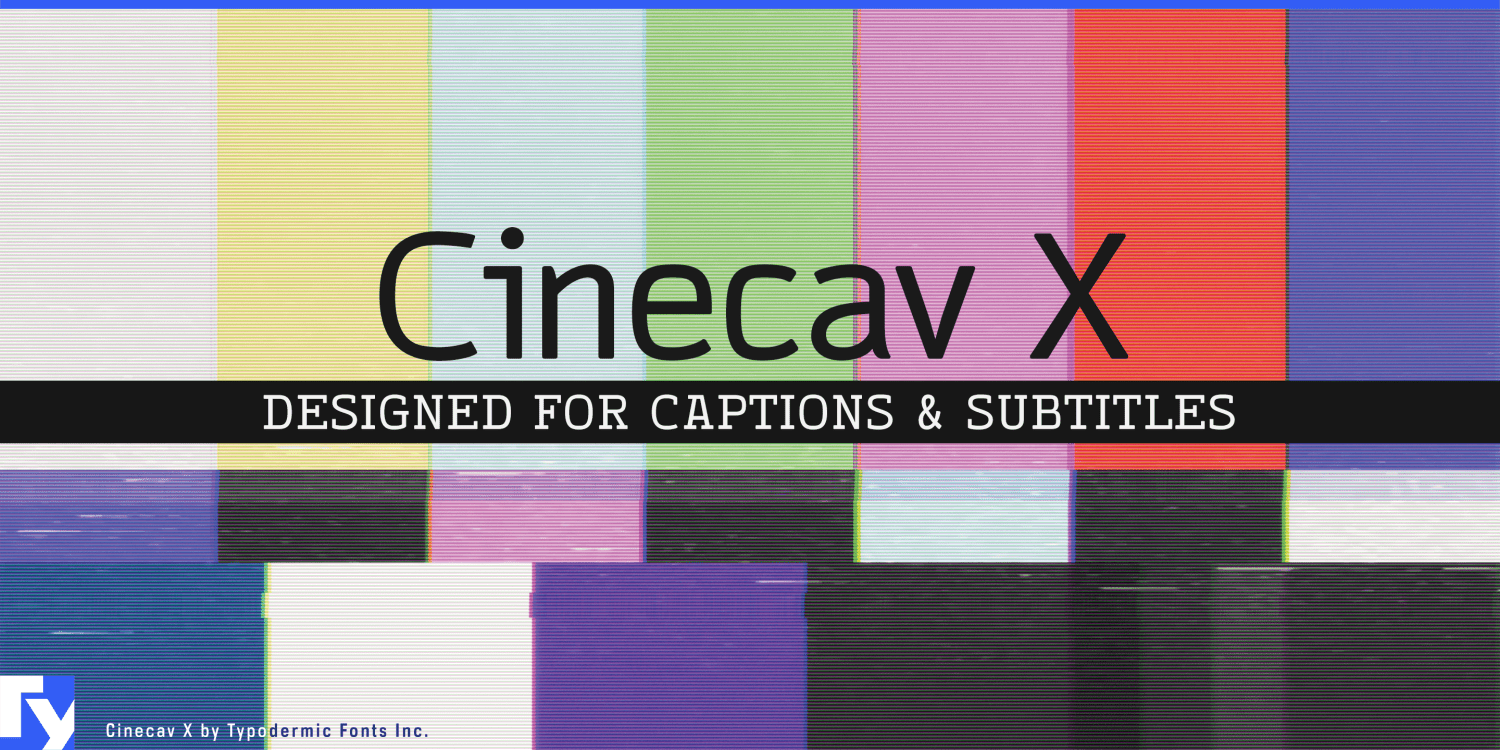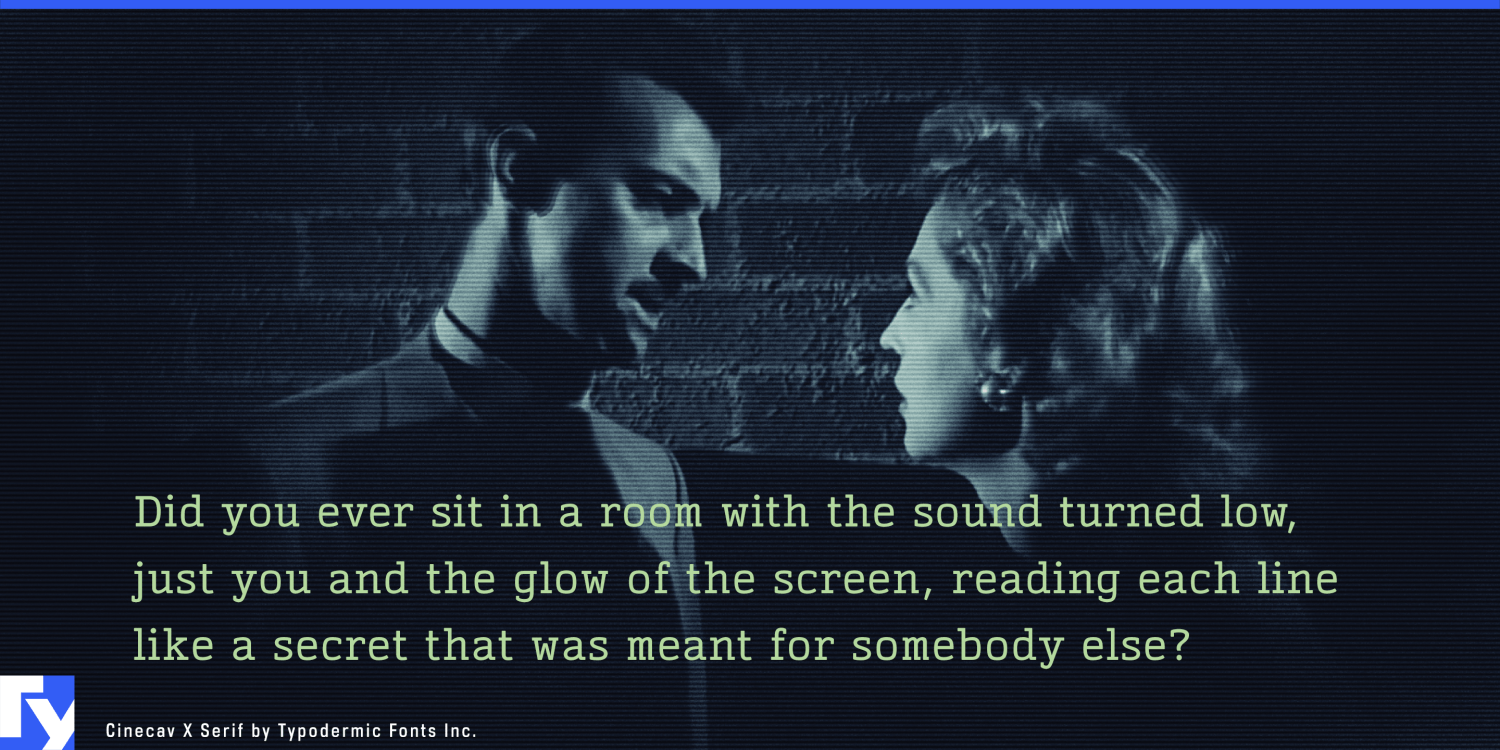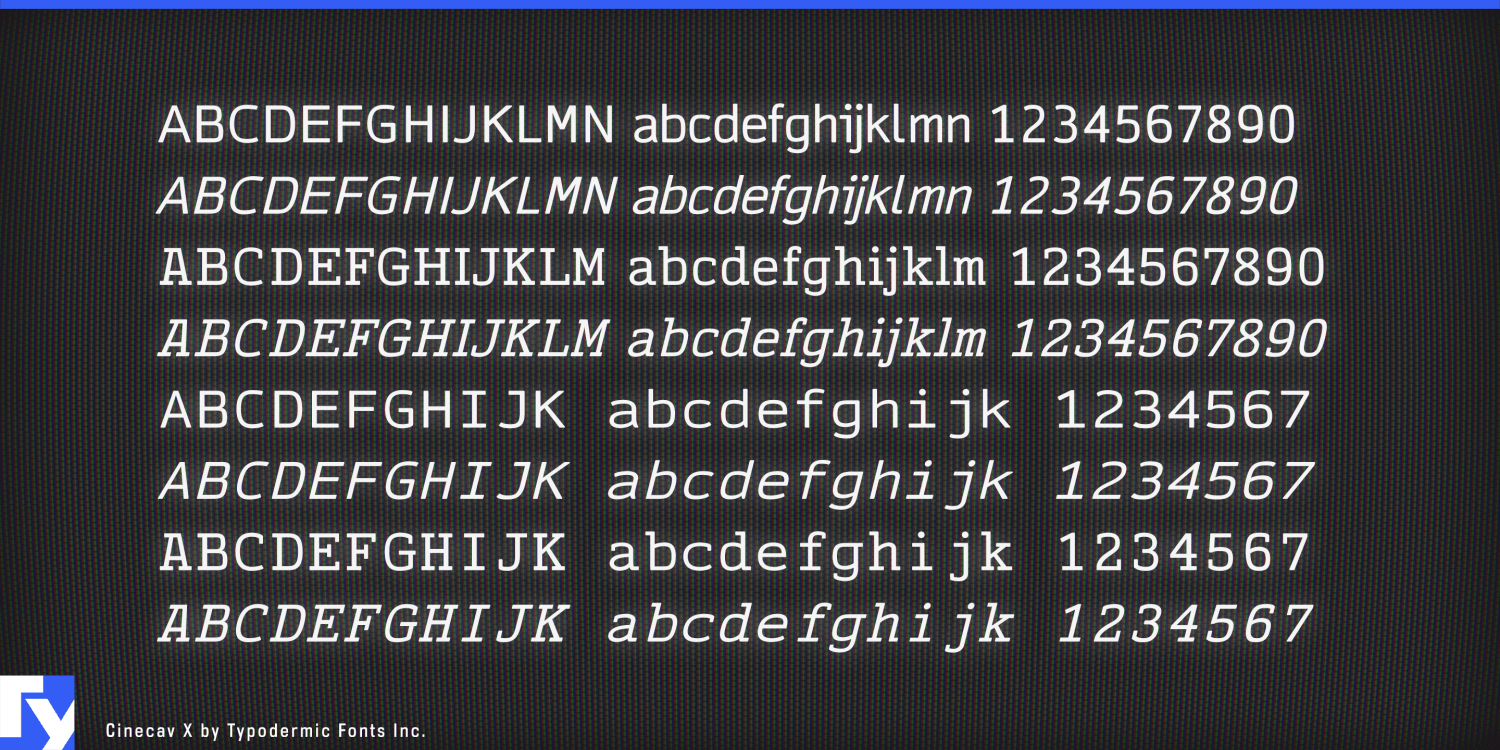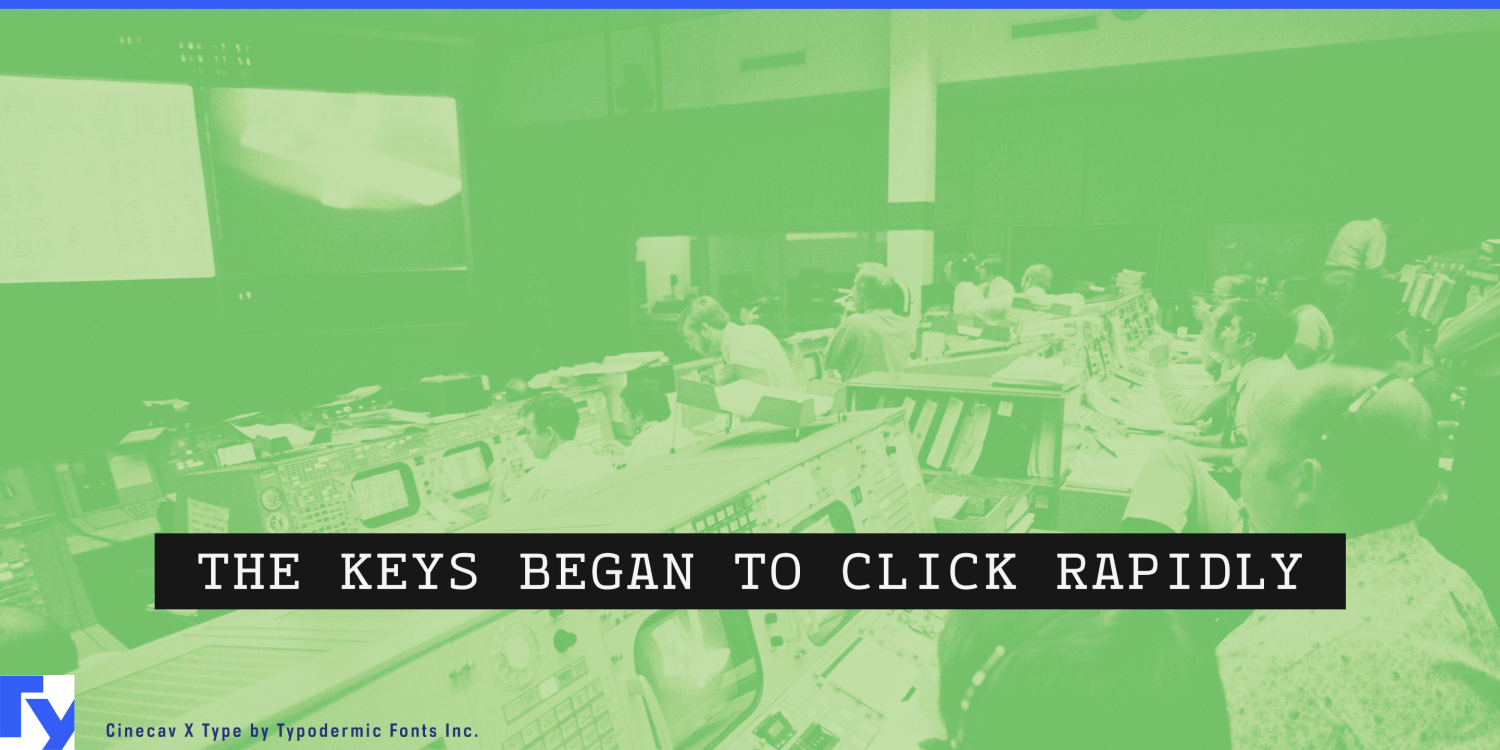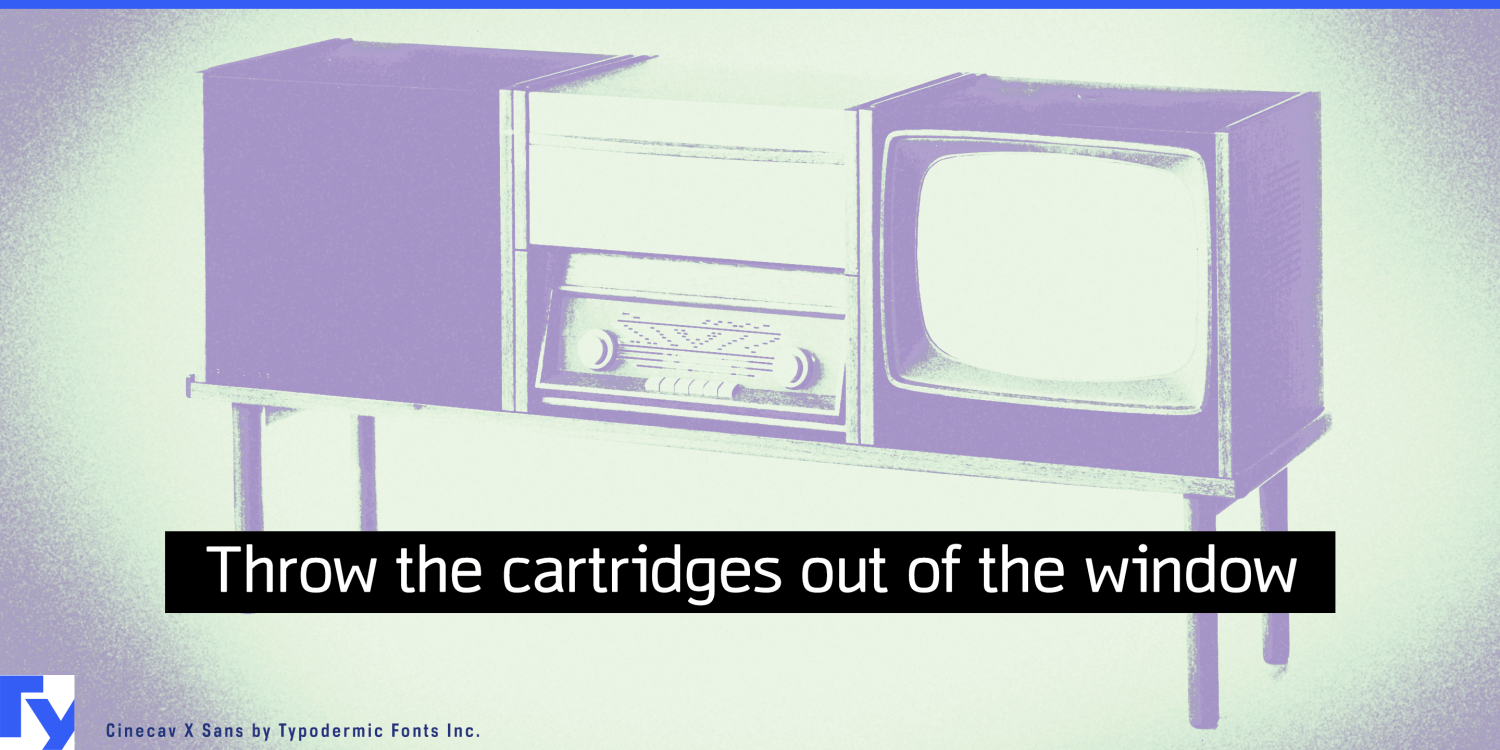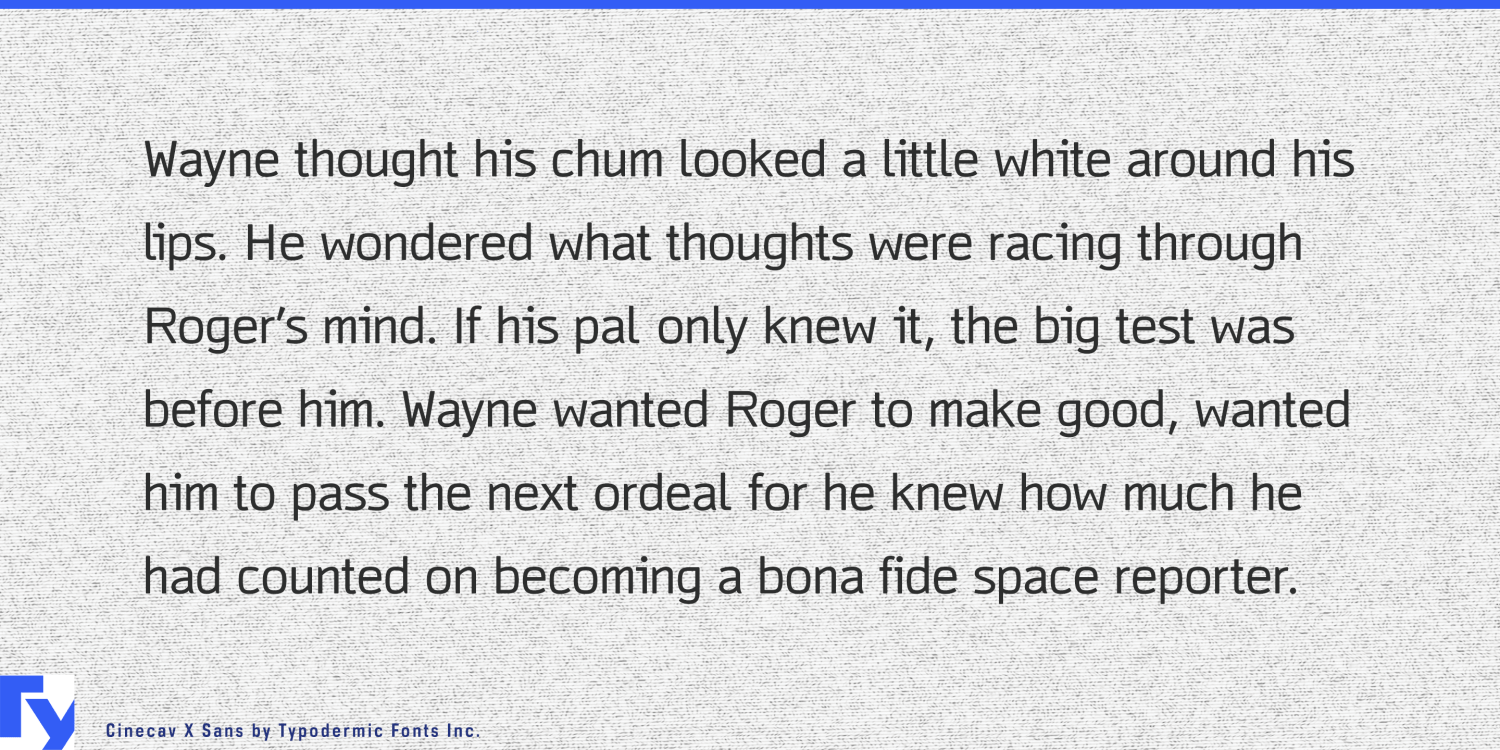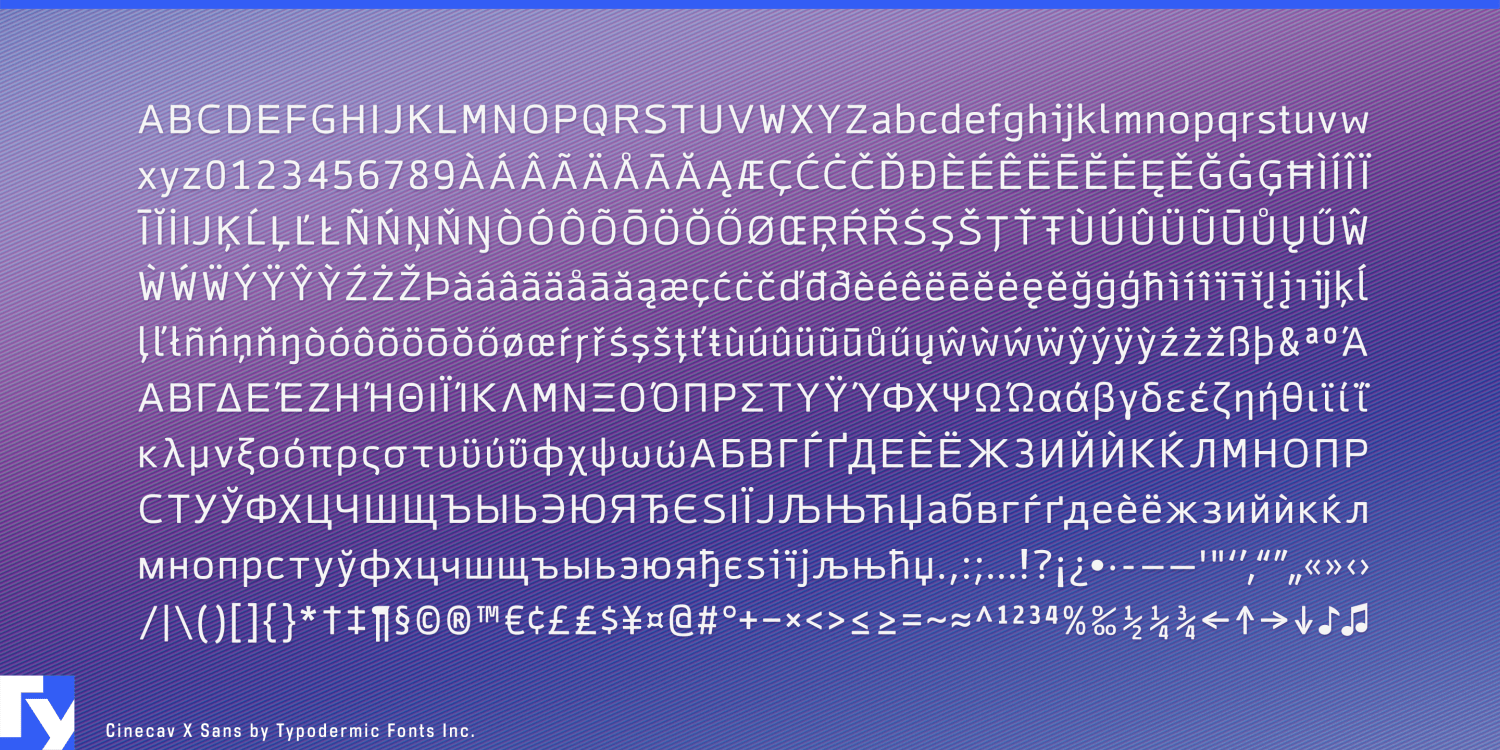
Cinecav X
Most screen typography gets a cooperative background. Buttons, labels and interface text can sit on panels designed around them. Captions get whatever happens to be behind the actor: faces, white shirts, night scenes, camera movement, compression and sudden changes in brightness. Cinecav X comes from typography designed for that much less forgiving job.
The original Cinecav designs were developed specifically for television closed captions and tested on consumer displays. Their underlying forms went on to appear as built-in caption fonts in millions of television sets. Cinecav X brings that broadcast-derived approach into a general-purpose family for designers working with moving pictures.
Streaming services, smart-TV apps, subscription video platforms and media players all need text that can remain distinct as the image beneath it changes from shot to shot. Cinecav X provides four related voices—Sans, Serif, Mono and Type, each with an italic—so a product can offer meaningful caption choices without assembling an unrelated collection of fonts.
Live captioning makes the original design problem even more current. Conferences, sports streams, lectures, corporate broadcasts, livestreams and creator video increasingly place automatically generated words over unpredictable moving images. Cinecav X can provide the display layer for live-caption systems, real-time transcription and multilingual video without pretending that the typeface performs the transcription itself.
Professional subtitling and localization remain natural territory. Film distributors, documentary producers, streaming platforms and archival media projects can use Cinecav X for subtitles and captions across changing visual conditions. Greek and Cyrillic support broaden its usefulness in multilingual productions, while the four related designs provide different caption voices within one system.
Language-learning platforms, recorded lectures, professional training systems and instructional video libraries have similar needs. In these settings, captions may be something the viewer is actively studying rather than merely glancing at, making the caption layer part of the instructional design.
Cinecav X is more useful than a generic “screen font” description suggests. Its design comes from a part of the screen where typography never gets to choose what appears behind it. Television captions were once a specialized feature inside the set; now text rides over moving video almost everywhere video appears.